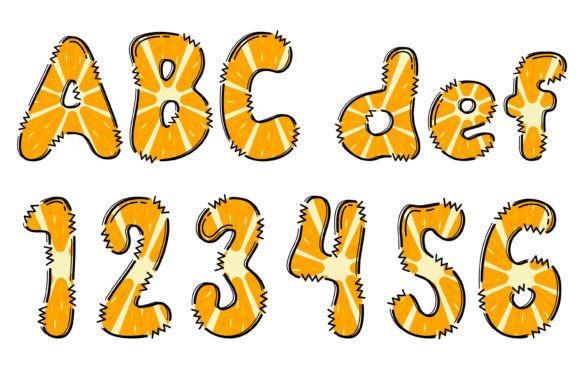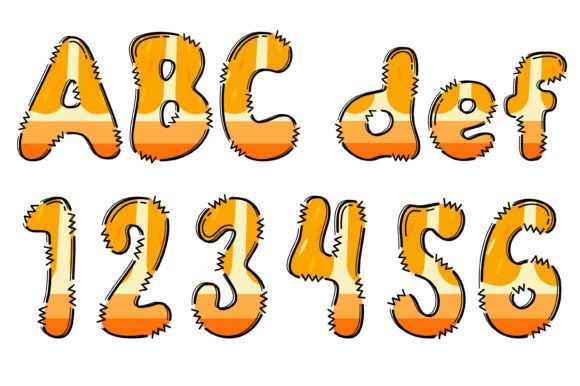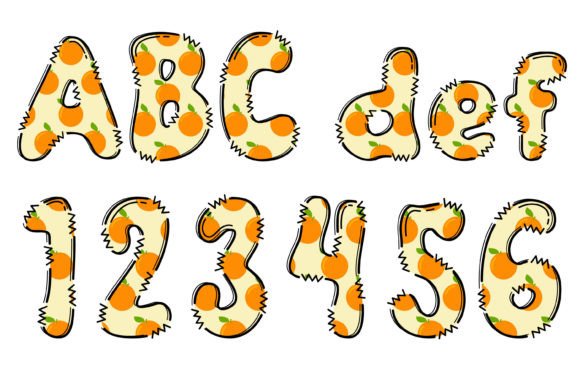
Introduction to Orange Bundle Font
As a designer, there’s nothing quite like the thrill of bringing a creative project to life. You’ve poured your heart and soul into it, and now it’s time to add the final touches. The right font can make all the difference, transporting your design from ordinary to extraordinary. That’s where the Orange Bundle Font comes in – a vibrant, high-quality font that’s perfect for adding a pop of color and whimsy to your next project.
Whether you’re working on a children’s book, a poster, or a greeting card, the Orange Bundle Font is a valuable design resource that’s sure to elevate your work. With its transparent background and seamless scalability, this Opentype-SVG font is compatible with a range of design software, including PhotoShop, Illustrator, Silhouette, and Inkscape. So why settle for a generic font when you can download the Orange Bundle Font for free and unlock a world of creative possibilities?
Key Features of Orange Bundle Font
- High-quality, unique design with a transparent background, perfect for creative projects and design resources.
- Features a bold, vibrant orange color scheme, ideal for projects that require attention-grabbing typography.
- Comes in a single font size, making it easy to use in various design contexts, including logos, headings, and body text.
Honest Review: Orange Bundle Font
As a designer, I’m always on the lookout for high-quality design resources to enhance my creative projects. Recently, I came across the Orange Bundle Font, and I’m excited to share my honest review.
What works well: ✨ The Orange Bundle Font is incredibly versatile, with a wide range of styles and weights that can be used for various design applications. The font is also available for free download, making it a great resource for designers on a budget. The transparent background is a nice touch, allowing for seamless integration with other design elements.
Here are some of the key features I love about the Orange Bundle Font:
- Transparent background for easy integration with other design elements
- Wide range of styles and weights for versatility
Limitations: ⚠️ While the Orange Bundle Font is a great resource, I did find that it’s not suitable for all design applications. The font may not be as bold or eye-catching as some other options, and it may not be the best choice for projects that require a lot of customization.
Overall impression: I’m really impressed with the Orange Bundle Font, and I would definitely recommend it to designers looking for a high-quality, versatile font. While it may have some limitations, I think it’s a great resource for creative projects and can be a valuable addition to any designer’s toolkit.
Tips for Getting the Most Out of Orange Bundle Font
Use the Orange Bundle Font in combination with other design resources to create unique and eye-catching designs. Experiment with different font styles and sizes to find the perfect combination for your creative project.
The Orange Bundle Font is perfect for use in a variety of creative projects, including logos, branding, and marketing materials. Its high-quality design and transparent background make it a valuable design resource for any project.
Do the fonts in the Orange Bundle Font have a transparent background?
Yes, most fonts in the Orange Bundle Font have a transparent background, making them ideal for use on various backgrounds, including images and videos. This feature allows for seamless integration and easy customization of your designs.